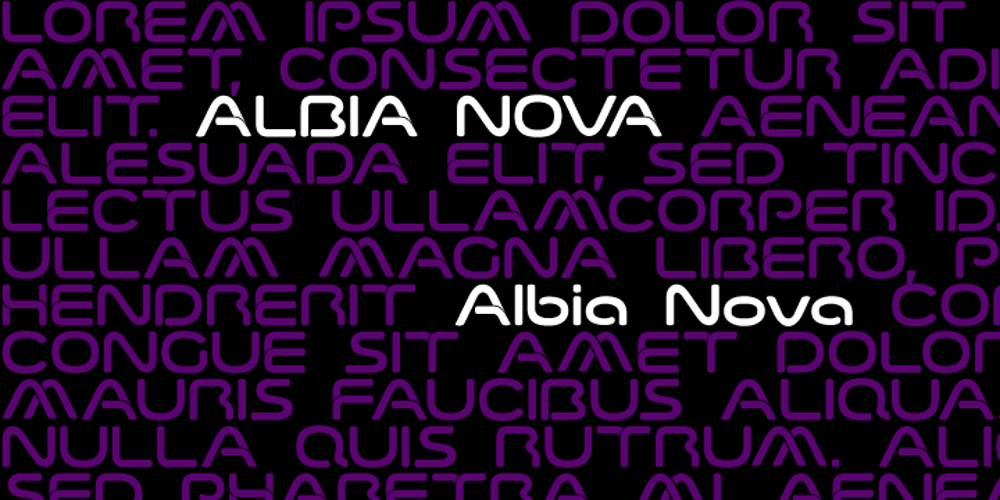
Albia Nova Font Family was designed by Paul James Lloyd and published by Greater Albion Typefounders. Albia Nova contains 1 styles and family package options. Albia Nova is a bit of a new departure for Greater Albion-an unashamedly futuristic typeface. It was originally developed for a friend of ours-a set designer who needed some lettering on props for a science fiction play-the brief was to evolve conventional letter forms and speculate as to what they may look like in the future. As released Albia Nova is a more refined version of this idea, placing a bit more emphasis on readability (today) over evolution of the letterforms. The result is good for giving design projects a futuristic feel, but also has something of the 1970s and 1980s about it.